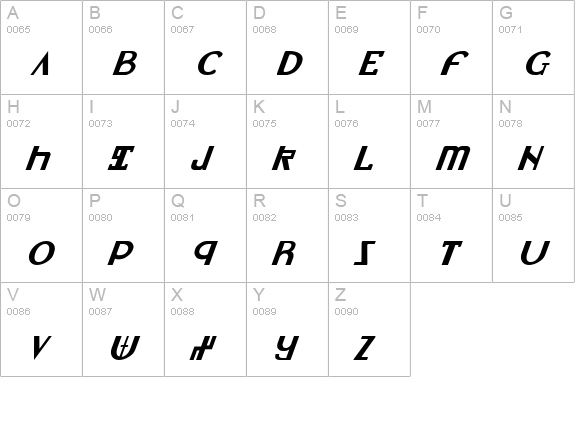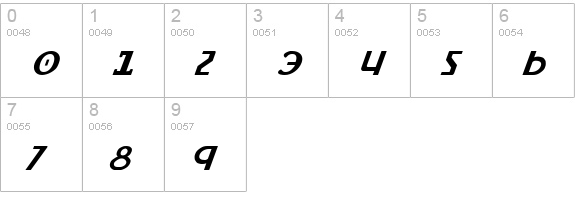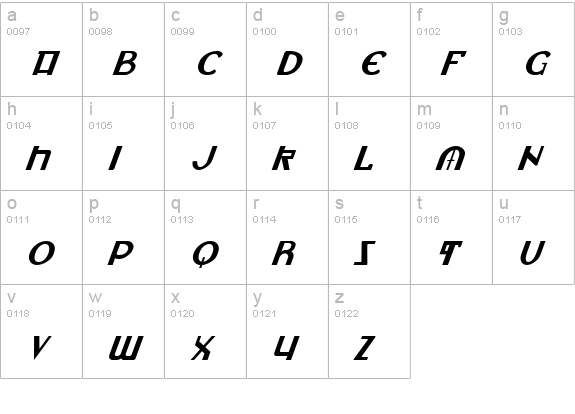
Lionheart Italic Font Details
Lionheart Italic is a distinctive, italic variant in the Lionheart typeface family \xE2\x80\x94 well suited to design and typography projects.
Lionheart Italic is a stunning and elegant font that exudes sophistication and charm. Its slanted and graceful letterforms convey a sense of strength and power, reminiscent of a majestic lion's roar. The unique curves and flourishes of Lionheart Italic make it a perfect choice for projects that require a touch of luxury and refinement. What sets Lionheart Italic apart is not only its striking design but also the fact that it is available for free download at FontsMarket.com. This means that you can easily access and use this beautiful font in your creative projects without any cost, making it a valuable addition to your font collection. Whether you're designing a logo, creating invitations, or crafting a poster, Lionheart Italic will elevate your work with its timeless beauty and sophistication. Download this exquisite font today and unleash the power of Lionheart Italic in your designs.